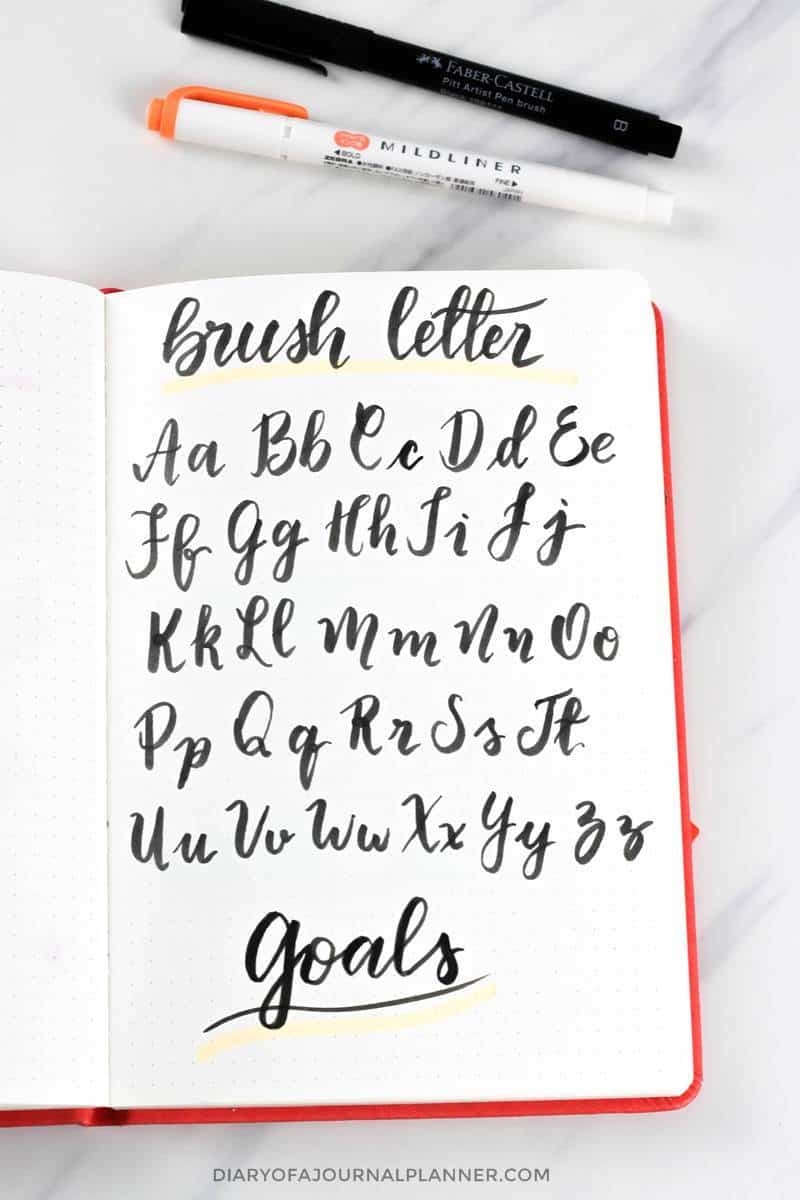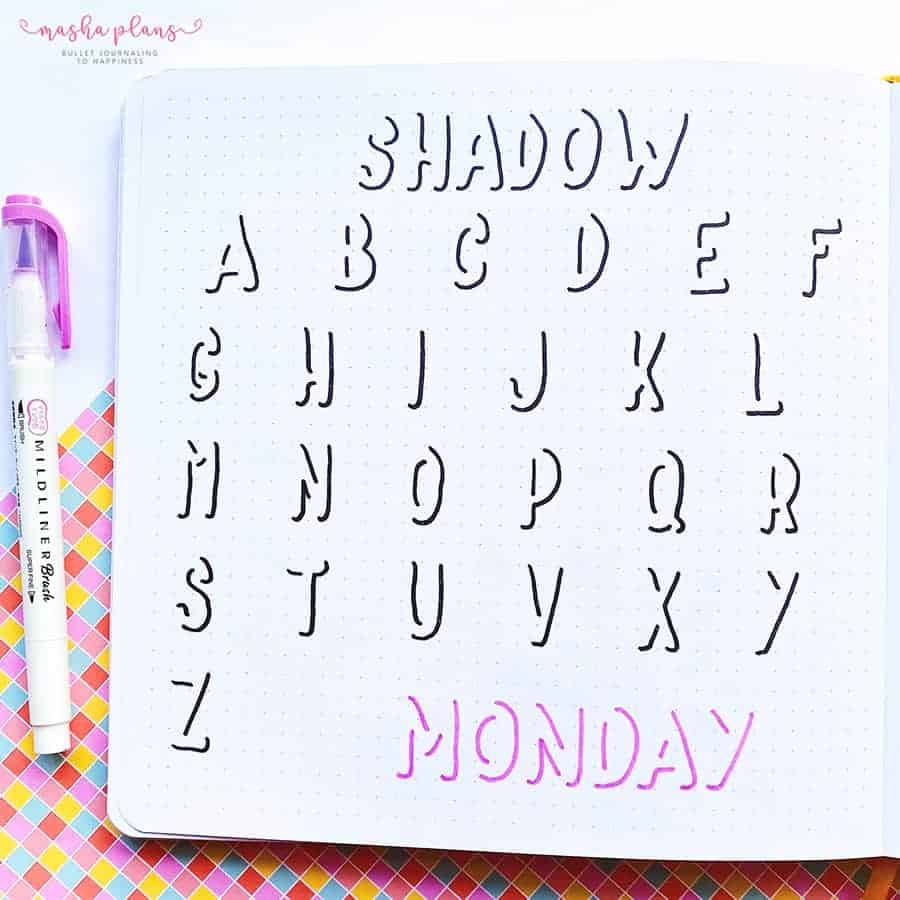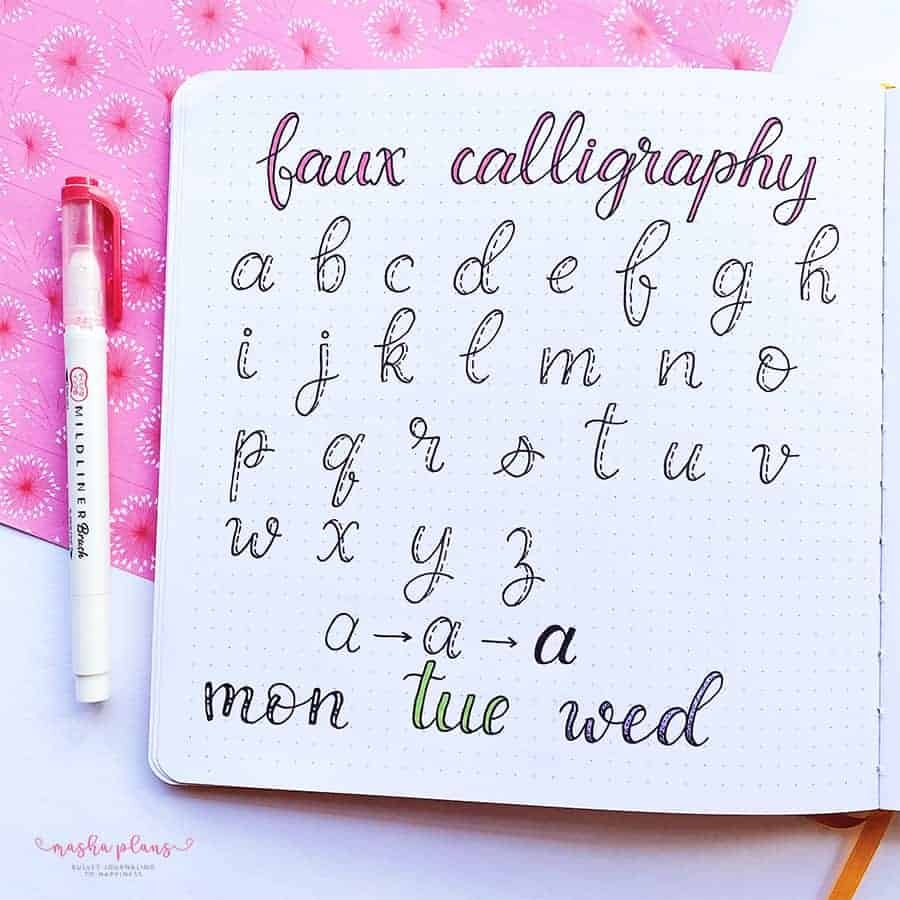
Are you looking to add some pizzazz to your bullet journal? One way to make your spreads stand out is by using different fonts. Bullet journal fonts can elevate your layouts and add a personal touch to your journaling experience.
Whether you prefer elegant calligraphy, playful handwriting, or modern sans-serif styles, there are endless options to choose from. Mixing and matching fonts can create a dynamic and visually appealing layout that reflects your unique style and personality.
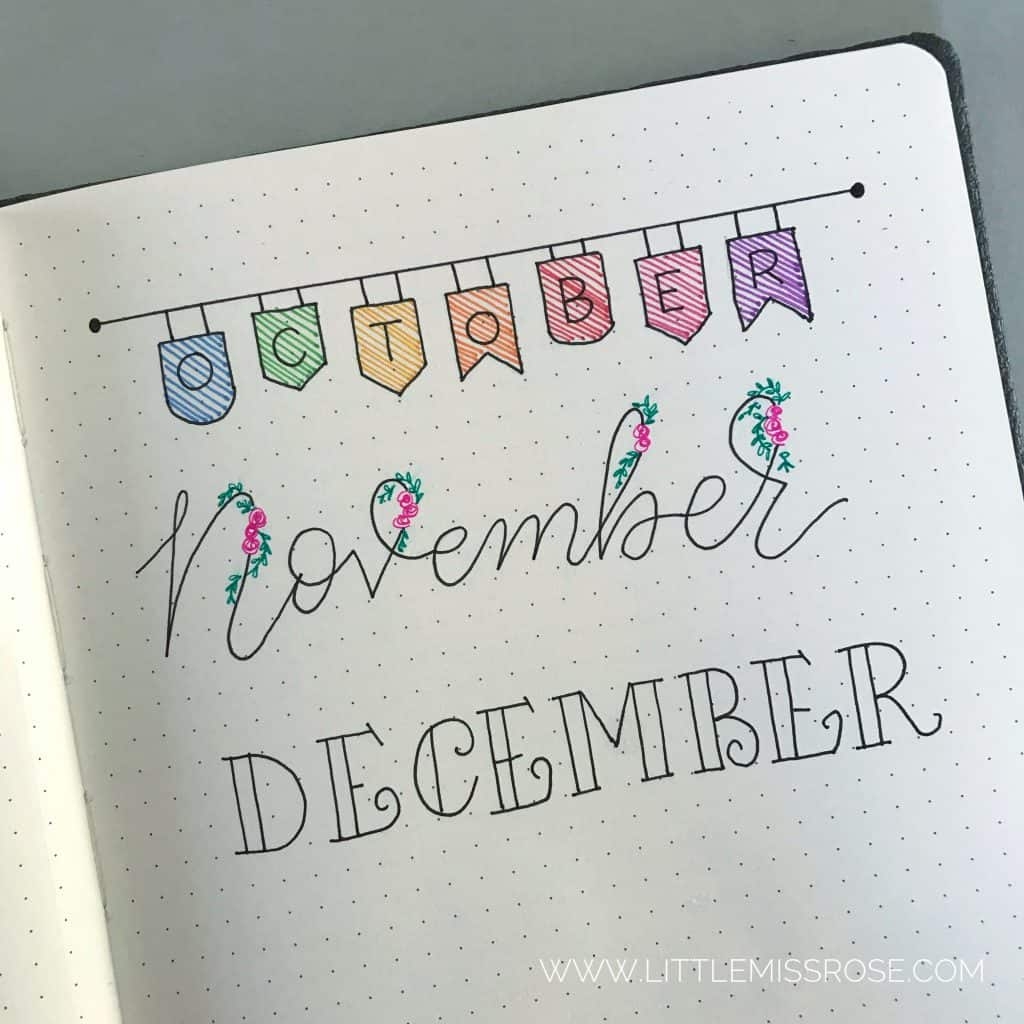
Bullet Journal Fonts: Adding Flair to Your Spreads
Experiment with different font sizes, styles, and colors to create a cohesive and eye-catching design. Play around with hand lettering techniques or explore digital font options to find the perfect match for your journaling needs.
Adding decorative elements like banners, dividers, or doodles can further enhance your font choices and make your spreads pop. Don’t be afraid to get creative and try new combinations to see what works best for you.
Remember, your bullet journal is a reflection of your individuality, so have fun with it! Whether you’re a seasoned journaler or just starting out, incorporating unique fonts can take your spreads to the next level and make your journaling experience even more enjoyable.
So go ahead, grab your favorite pens and get creative with your bullet journal fonts. Let your imagination run wild and watch as your spreads come to life with personality and flair!